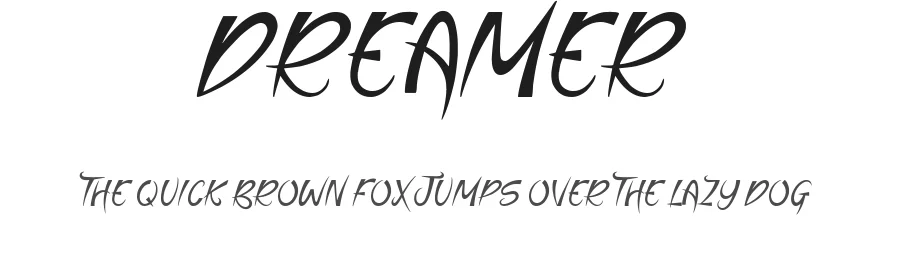
About Restless Font
Restless is a decorative font designed by Des Gomez. It includes 103 glyphs, a medium weight, TTF (TrueType) format, and 107 languages. Restless is free to download; check the license details on this page before commercial use. Decorative fonts like Restless work best for logos, posters, packaging, and standout headlines.
Restless Font is a decorative font that shines as a display or heading face. Pair it with a clean sans-serif or serif font for body text β the contrast creates a clear hierarchy while the two styles stay balanced and easy to read.
Restless Font
by Des Gomez
Restless Font is a decorative typeface by Des Gomez, ideal for logos, invitations, branding, and creative projects.